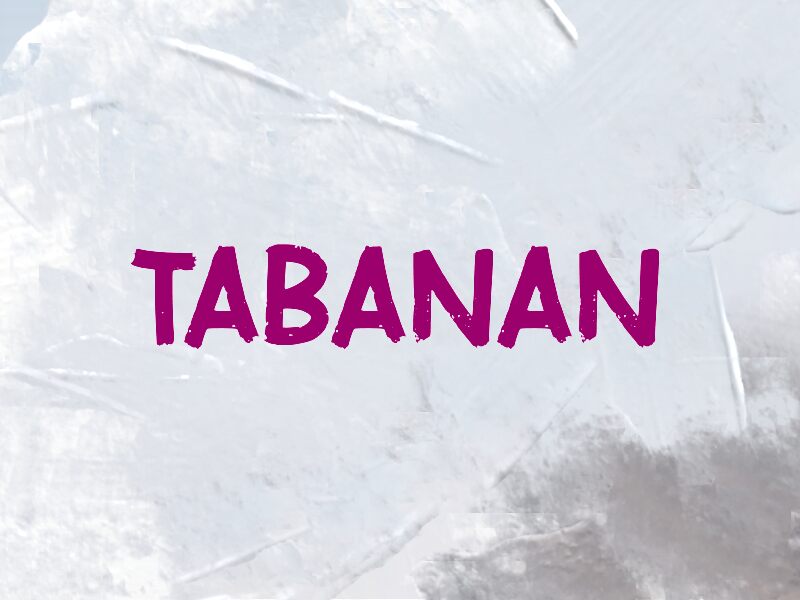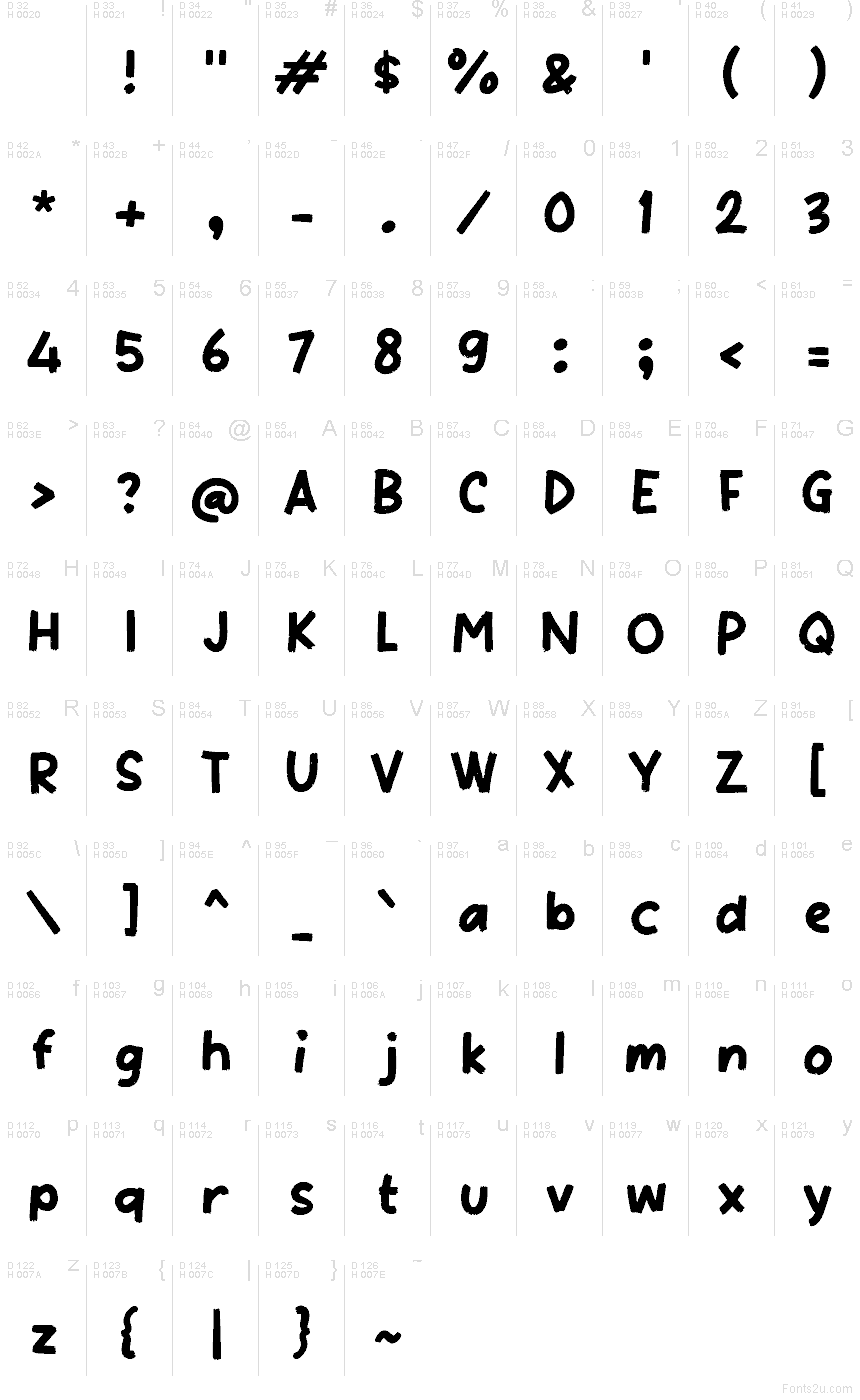
TABANAN
Tabanan font by wep is a free brush typeface with the loose, inky energy of quick hand lettering. Thick strokes, rough edges, and slightly uneven shapes give it that “painted on a wall in one confident motion” feel, somewhere between playful and bold. It has enough weight to hold a headline on its own, while the textured strokes keep it from feeling flat or digital.
Using Tabanan, this free font shines on streetwear graphics, poster titles, YouTube thumbnails, food truck branding, bold social posts, and event flyers. The casual brush rhythm reads fast and loud, making short phrases and names really stick. It works beautifully when paired with a clean geometric sans for body text, and tends to look best set large so the grainy, hand-brushed character really shows.